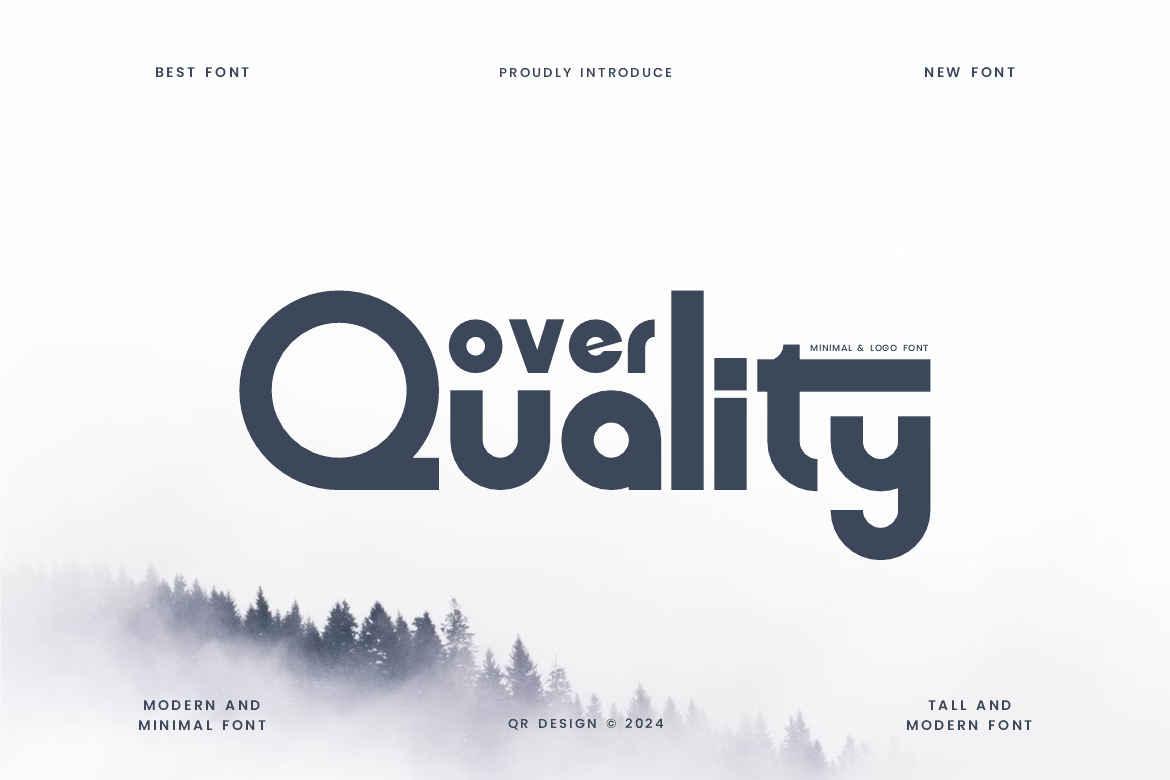
Over Quality Minimal & Premium Font
Over Quality Font is a bold and authentic display font. The font is suitable for any branding project like poster, logo, sport, and many more. Outstanding in a wide range of contexts.